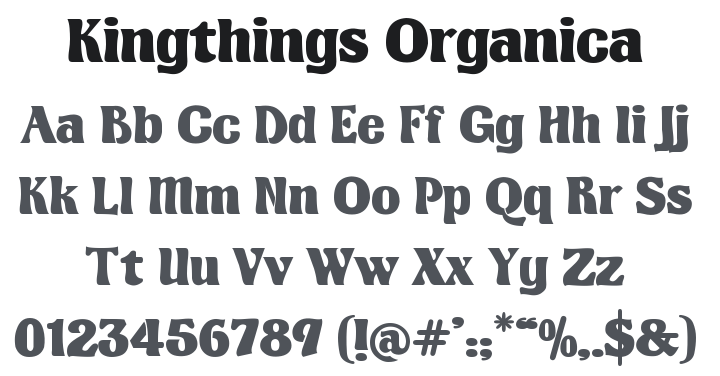
Kingthings Organica Font
About Kingthings Organica
This font was originally developed at Art College in 1981 - at the time it was called Roxanne and was hand drawn at an X height of about 4 inches - took weeks and weeks! Fun though. Finally made into a proper font - sorry to all those who downloaded it before I had tidied it up - but then I do change all of them at the merest whim...